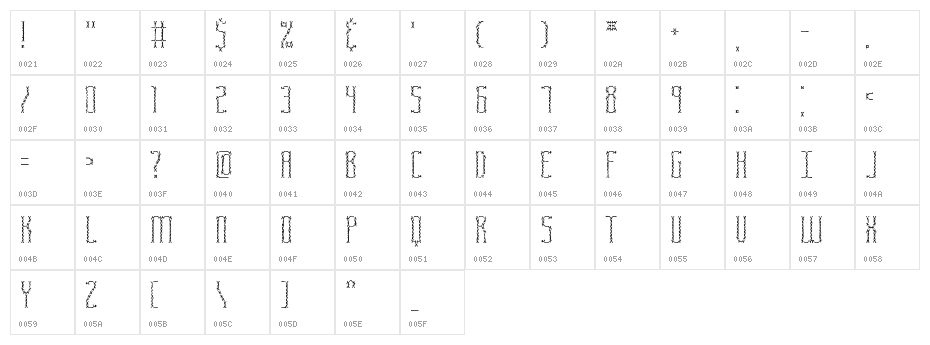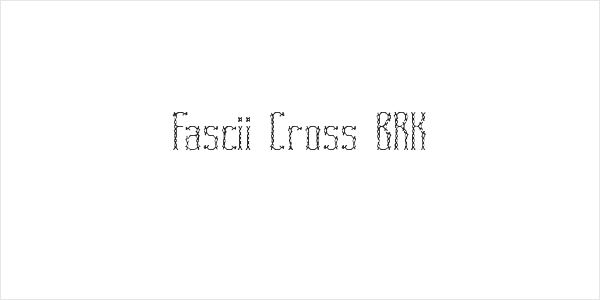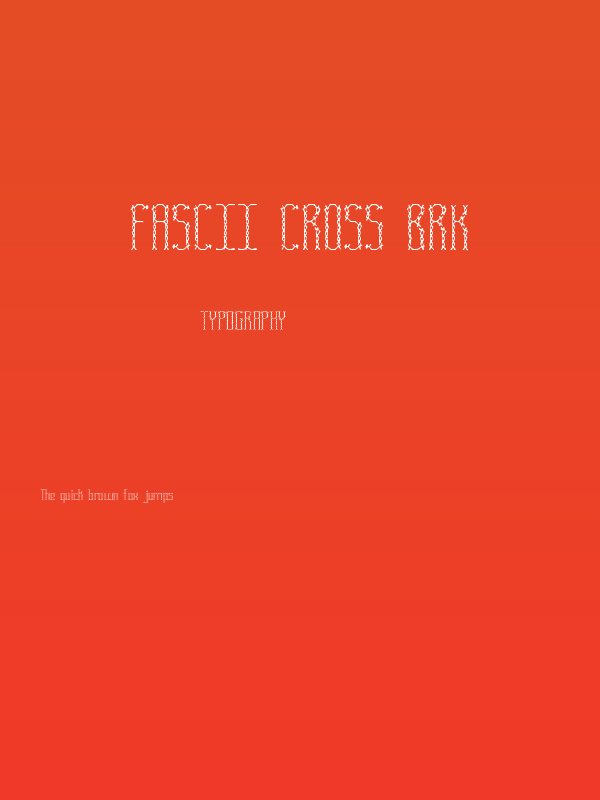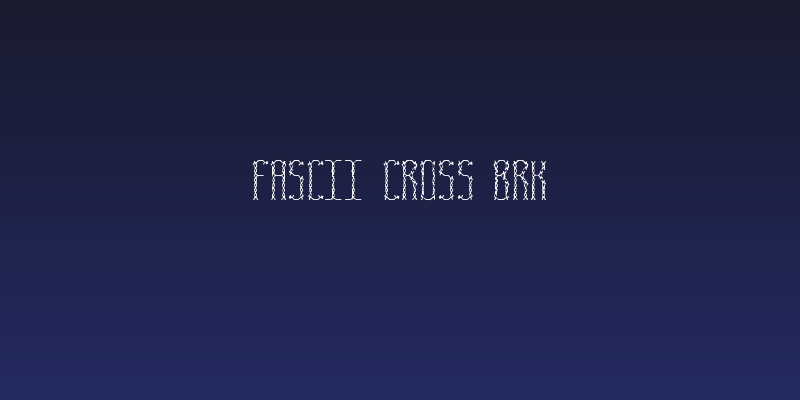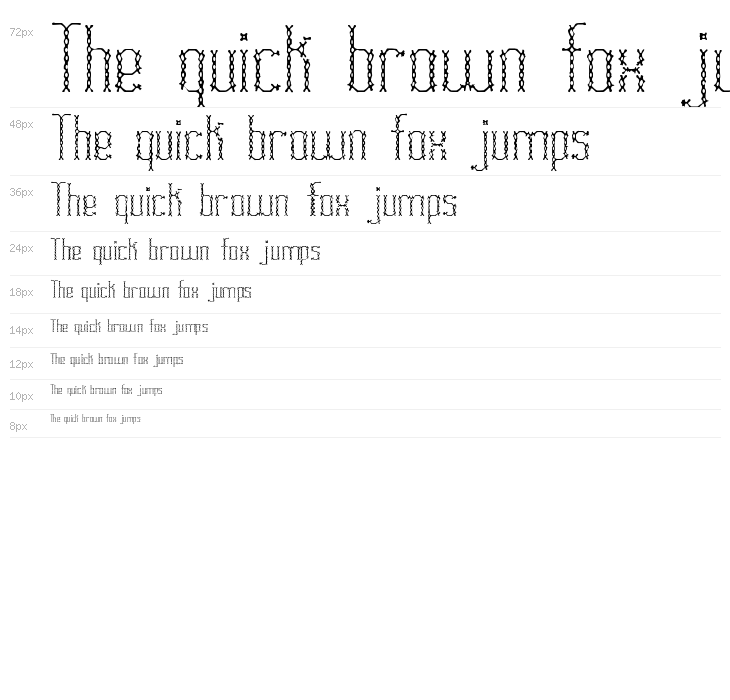
Fascii Cross BRK Font
Fascii Cross BRK Description
This font features a unique cross-stitch pattern that gives it a handcrafted, decorative appearance. Each character is composed of intersecting lines that mimic the look of embroidery, creating a textured and intricate design. The uppercase and lowercase letters maintain a consistent style, with the same cross-stitch effect applied throughout. Numbers and special characters are also designed with this distinctive pattern, ensuring a cohesive look across all elements. The font's playful and artistic style makes it stand out, offering a creative twist on traditional typography.